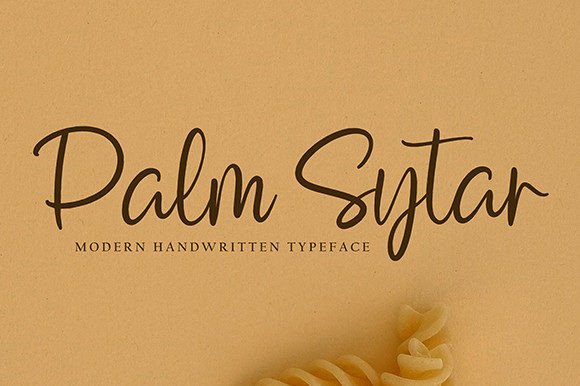
Discover Palm Sytar, a captivating script font family that dances gracefully upon the digital canvas, beckoning you to express your individuality. Inspired by the allure of handwritten signatures, Palm Sytar embodies romance and sweetness, adding a touch of elegance to your creative endeavors.
With its effortlessly flowing characters, Palm Sytar brings a sense of casual sophistication to your designs. Its delicate strokes evoke the intimacy of a handwritten note, while its precise construction ensures legibility and clarity. Whether you're crafting wedding invitations, designing logos, or creating social media graphics, Palm Sytar's charm and versatility will elevate your projects.
Unleash your creativity with a font family that captures the essence of handwritten beauty. Palm Sytar's enchanting characters will add a touch of magic to your designs, making them stand out from the crowd. Its versatility extends across a wide range of applications, from branding and advertising to web design and social media posts. Whether you're a seasoned designer or just starting out, Palm Sytar's user-friendly nature makes it accessible to everyone.
Embrace the allure of Palm Sytar and elevate your designs to new heights. Its graceful curves and elegant flourishes will add a touch of sophistication and charm to your creative projects. Discover the beauty of handwritten fonts and experience the joy of crafting designs that resonate with your audience.